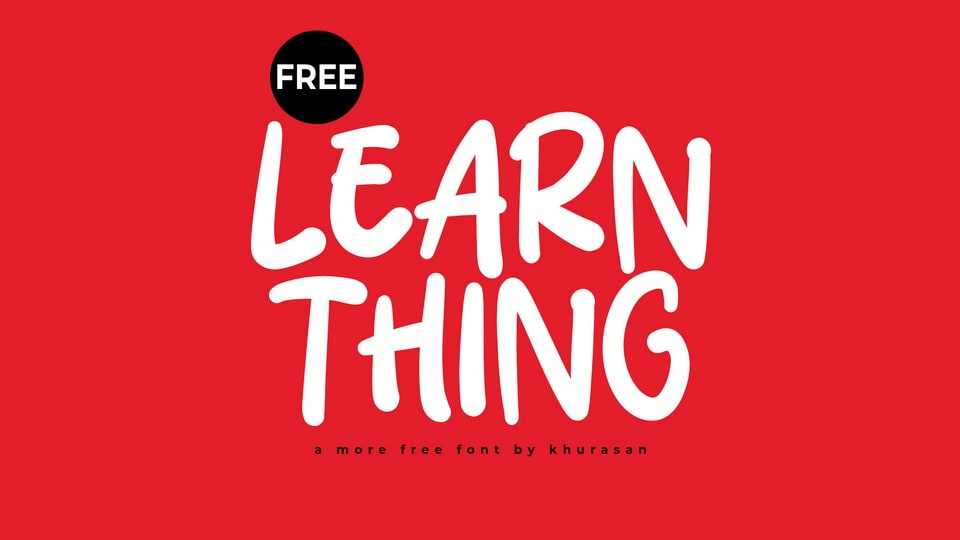
Download Learn Thing font, a clean and understated hand-drawn typeface that embraces simplicity and organic beauty crafted with soft, flowing strokes and playful curves.